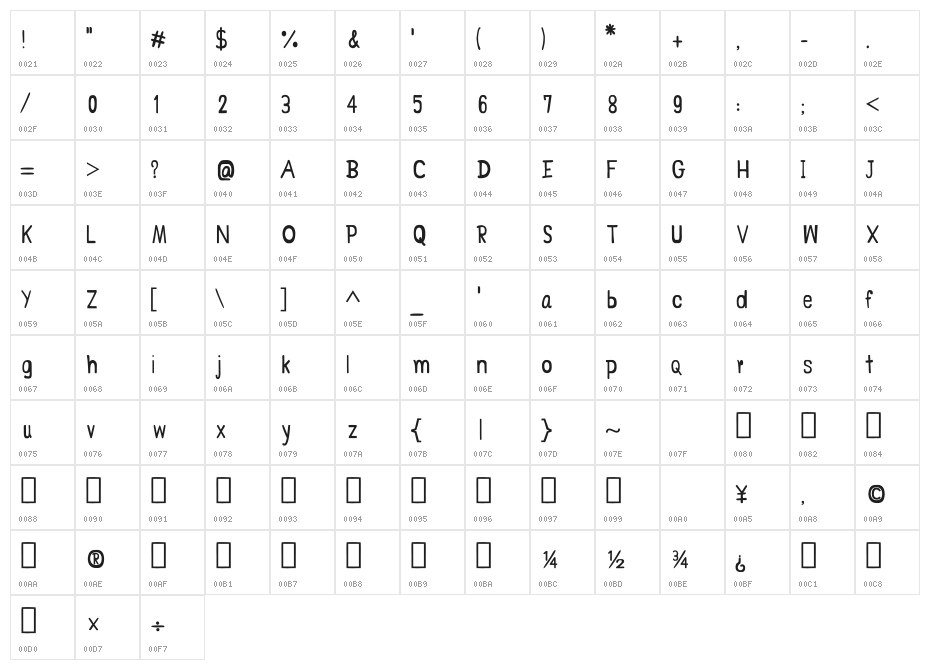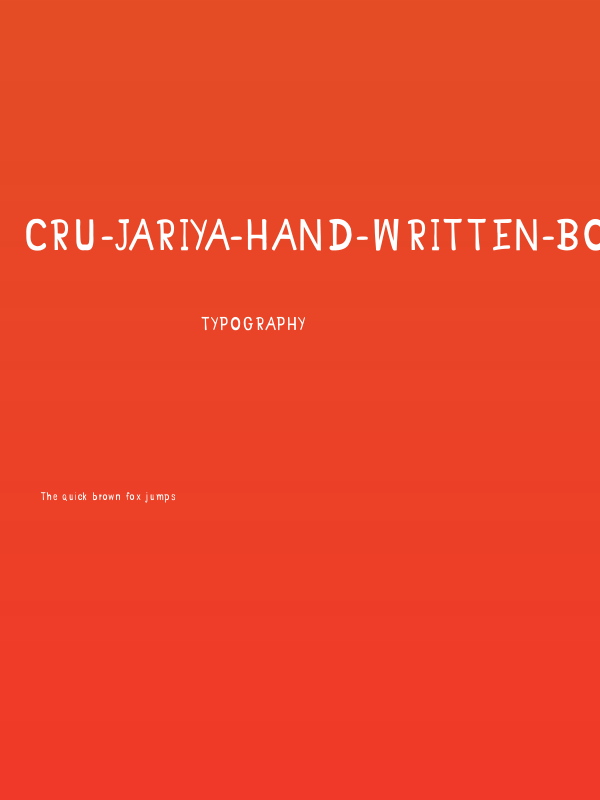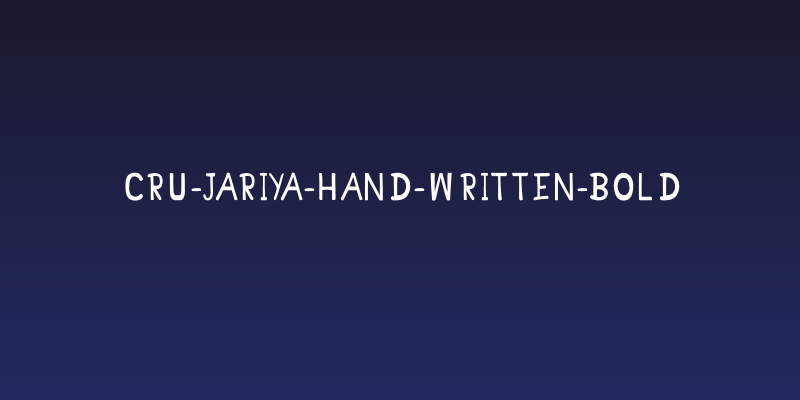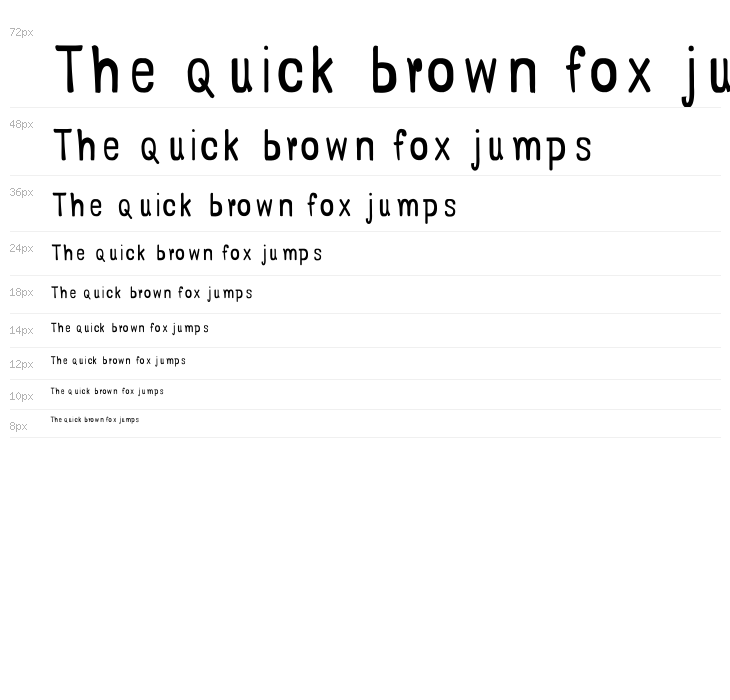
CRU-Jariya-Hand-Written-Bold Font
CRU-Jariya-Hand-Written-Bold Description
This font exhibits a playful and casual handwritten style, characterized by its uneven strokes and slightly irregular letterforms. The uppercase letters are bold and prominent, while the lowercase letters maintain a consistent flow with a touch of whimsy. The numbers are clear and legible, matching the overall informal aesthetic. Special characters are creatively integrated, adding to the font's charm. This font's unique personality makes it suitable for projects that require a personal touch or a friendly, approachable vibe.
| Use Case | Headlines, Logos, Informal text |
| Proposed Projects | Ideal for greeting cards, invitations, children's books, and casual branding. |